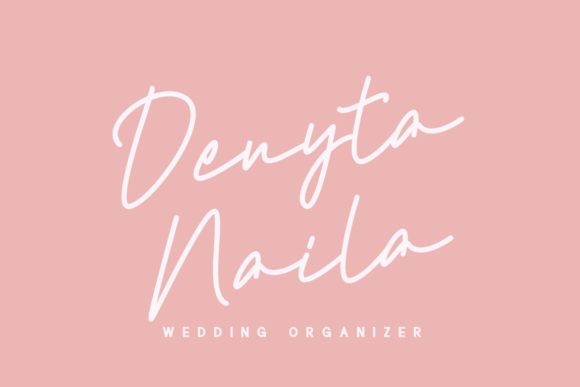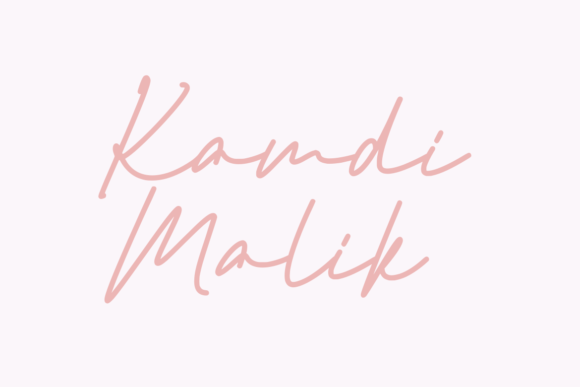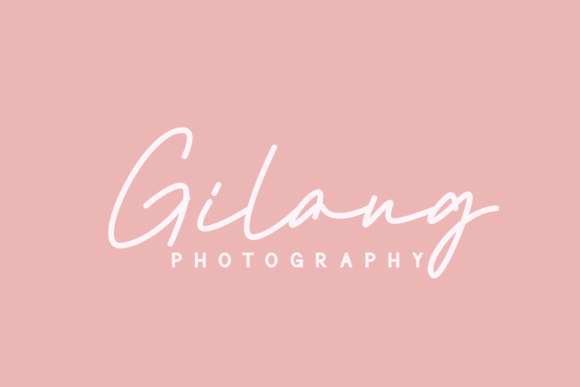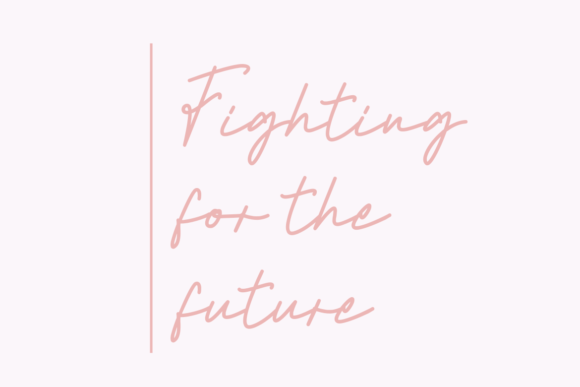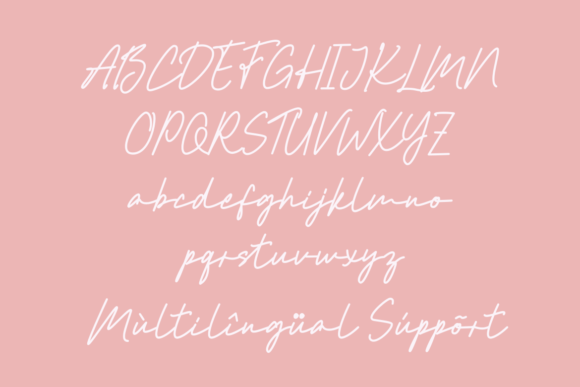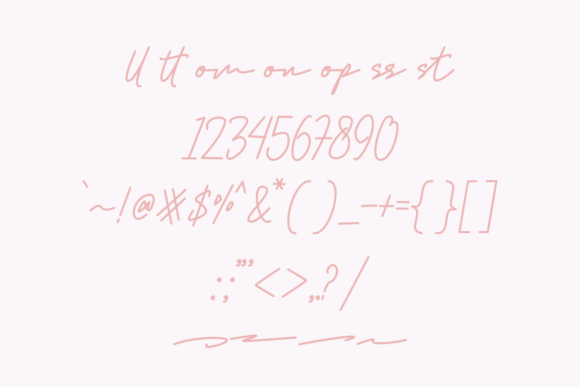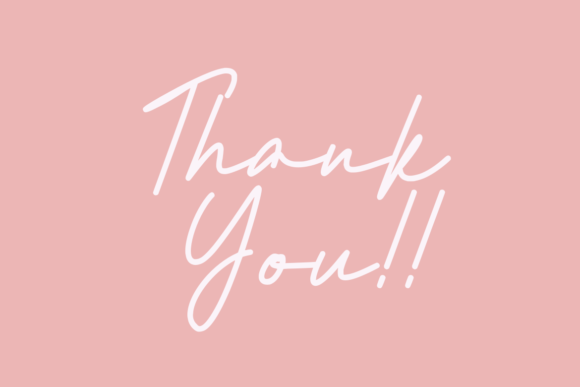
Romlla Font
About Romlla Font
**Romlla Script Font – Dainty Calligraphy for Romantic Designs**
The Romlla Script Font is a delightful typeface that adds a romantic and dainty touch to your design projects. With its elegant and calligraphic writing style, this font is a perfect choice for creating romantic and sophisticated designs. Here are some ways you can effectively use the Romlla Script Font in your design work:
1. **Wedding Invitations:** Create enchanting and personalized wedding invitations that reflect the romantic essence of the occasion. The dainty calligraphy of the Romlla font adds a touch of elegance to your invitation designs.
2. **Love Letters:** Craft heartfelt love letters and notes with the Romlla font to express your affection and sentiments in a beautifully handwritten style.
3. **Greeting Cards:** Design romantic greeting cards for special occasions like anniversaries, Valentine’s Day, or birthdays. The Romlla font’s calligraphic charm enhances the romantic message.
4. **Quotes and Poems:** Illustrate love quotes, poetry, and romantic sayings using the Romlla font. Its dainty and elegant appearance complements the emotional depth of the words.
5. **Logos and Branding:** Create logos and brand identities for businesses or products that want to convey a romantic and classy image. The Romlla font adds a touch of sophistication to brand designs.
6. **Social Media Posts:** Enhance your social media posts, especially those related to love stories, relationships, or romantic products. The Romlla font’s romantic look can captivate your audience.
7. **Product Packaging:** Add a romantic and elegant touch to product packaging and labels for items like perfumes, chocolates, or luxury gifts. The Romlla font enhances the visual appeal of packaging.
8. **Book Covers:** Apply the Romlla font to book covers for romance novels, poetry collections, or novels that require a romantic and dainty aesthetic.
9. **Stationery:** Personalize stationery items, including notecards, letterheads, and envelopes, with the Romlla font. It elevates the elegance of your written correspondence.
10. **Photography Watermarks:** Use the Romlla font to create professional and stylish watermarks for your romantic or wedding photography portfolio.
11. **Special Events:** Design materials for special events like engagement parties, bridal showers, or romantic-themed gatherings. The Romlla font sets a romantic tone for these occasions.
12. **Gift Tags:** Customize gift tags with the Romlla font for presents given on romantic occasions. Its calligraphic beauty adds a special touch to gifts.
13. **Typography Art:** Create typography art featuring romantic phrases or lyrics using the Romlla font. It adds an artistic and romantic flair to your wall art.
14. **Digital and Print Design:** Use the Romlla font in digital and print design projects where a romantic and dainty calligraphy style is desired. It adds a touch of class and charm.
15. **Website Headers:** Incorporate the Romlla font into website headers and banners for websites, blogs, or online stores that focus on romance-related content or products.
The Romlla Script Font’s romantic and dainty qualities make it an excellent choice for adding a touch of elegance and sophistication to your design projects. Whether you’re working on romantic-themed materials, branding, or personal creations, this font can help you convey a sense of love and refinement to your audience. Its carefully crafted calligraphy style adds a touch of class and charm to various design contexts, making your creations more captivating and memorable.